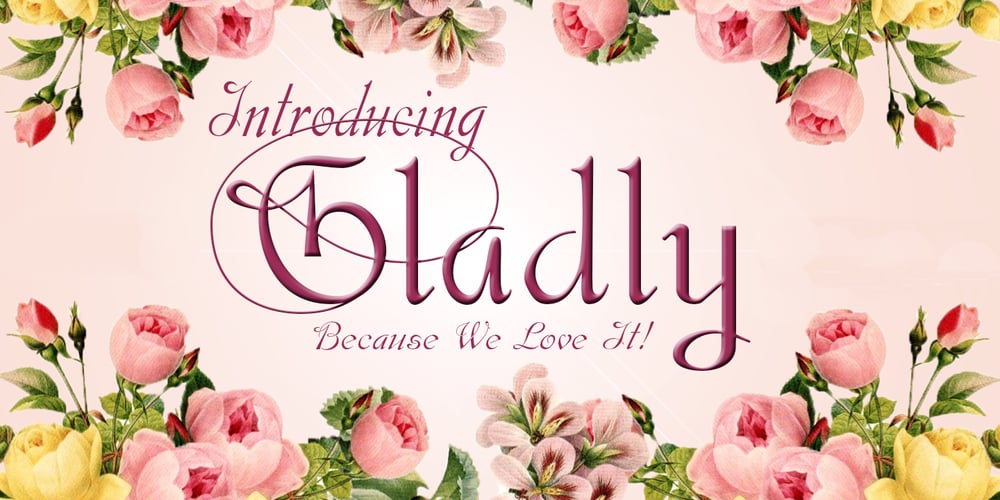
Gladly
Gladly font
Gladly Font Family was designed by Anton Scholtz and published by Scholtz Fonts. Gladly contains 17 styles and family package options. Gladly is based on an earlier Scholtz Font – Margaux, which appeared as a simple oblique font. Gladly has grown from the original, into a multi-styled, comprehensive typeface with 17 styles in all. Gladly Regular’s elegant, svelte profile has been blended into three widths, Narrow, Regular and wide, each with its own oblique version. Gladly Ornate comprises seven styles with flowing, ornamental, curvy-swashed upper case characters, reminiscent of Illuminated Script, and beautiful features such as fancy Opentype word-endings. Gladly Wisp is a delicate outline version with flowing swashes. Gladly Rococo, in three widths, has a 3-D outline feature, particularly reminiscent of Art Nouveau posters. The Gladly collection lends itself to the design, packaging and advertising of everything with a romantic feel – weddings, greetings, cosmetics, lingerie, book covers, and too many more to mention! The set of fonts has all the features usually included in a fully professional typeface. Language support includes all European character sets.